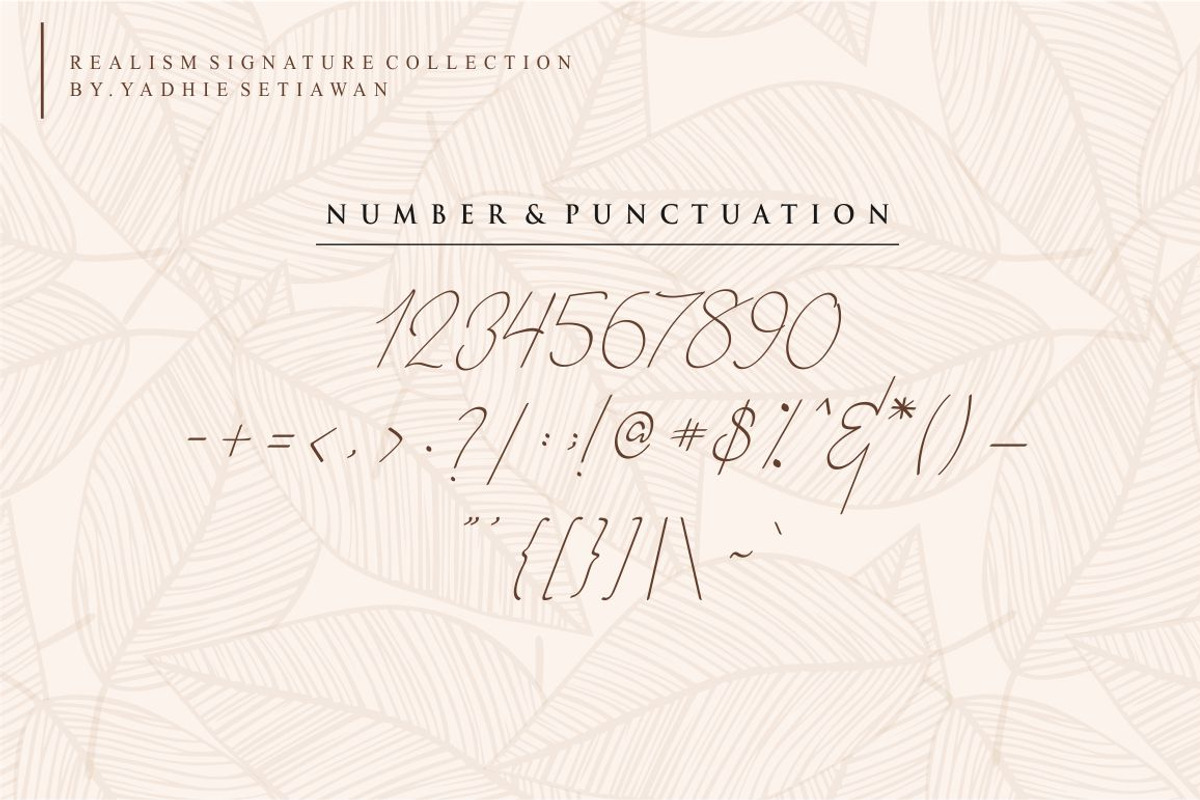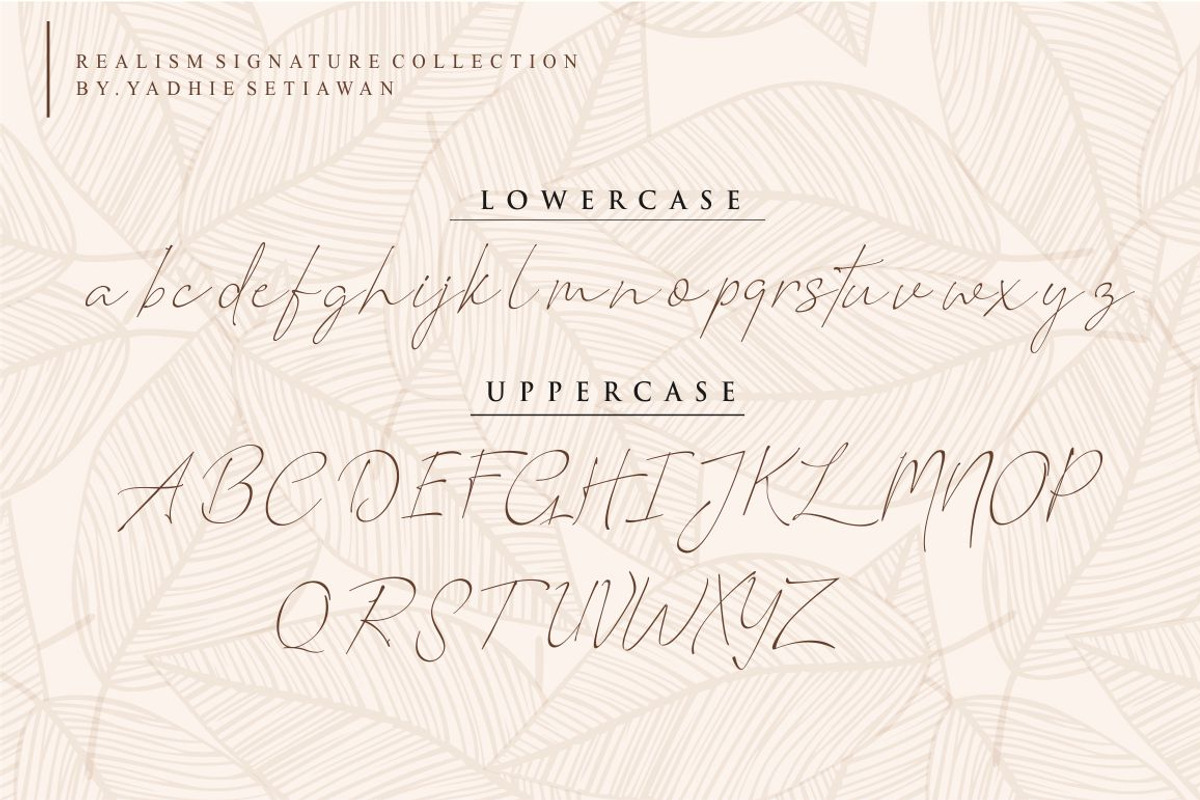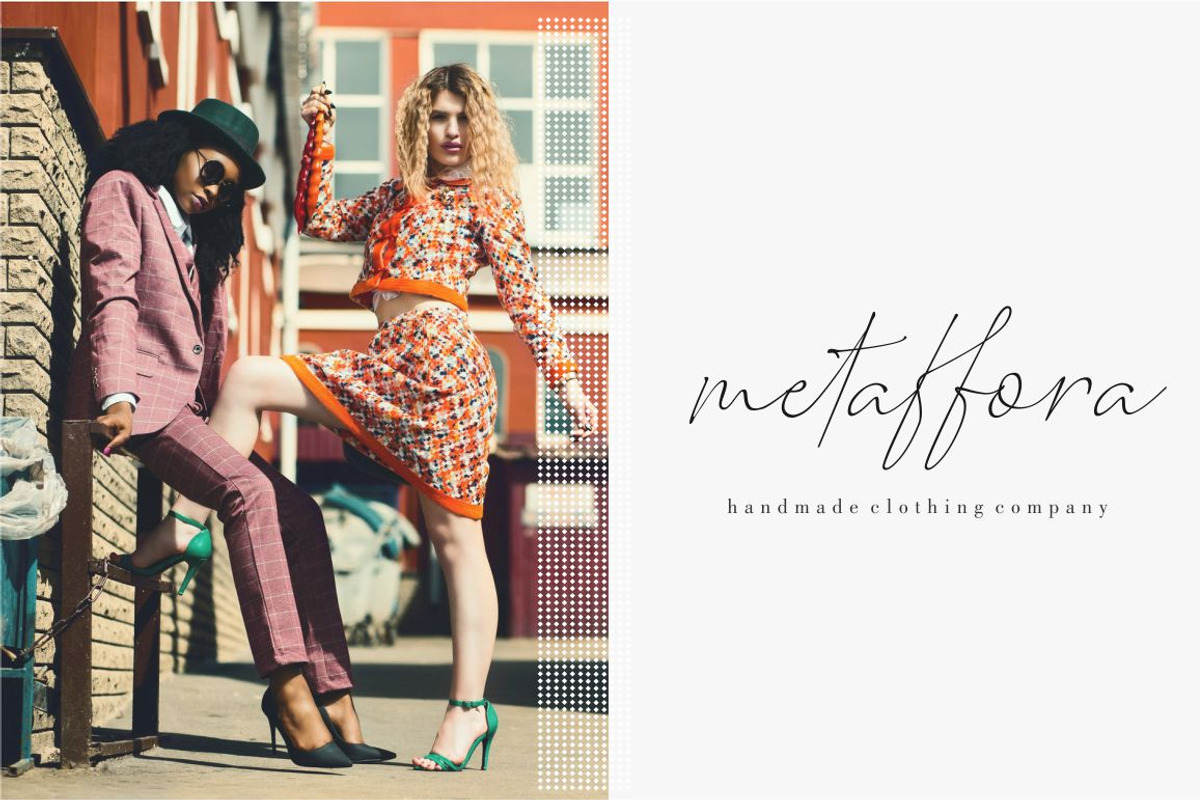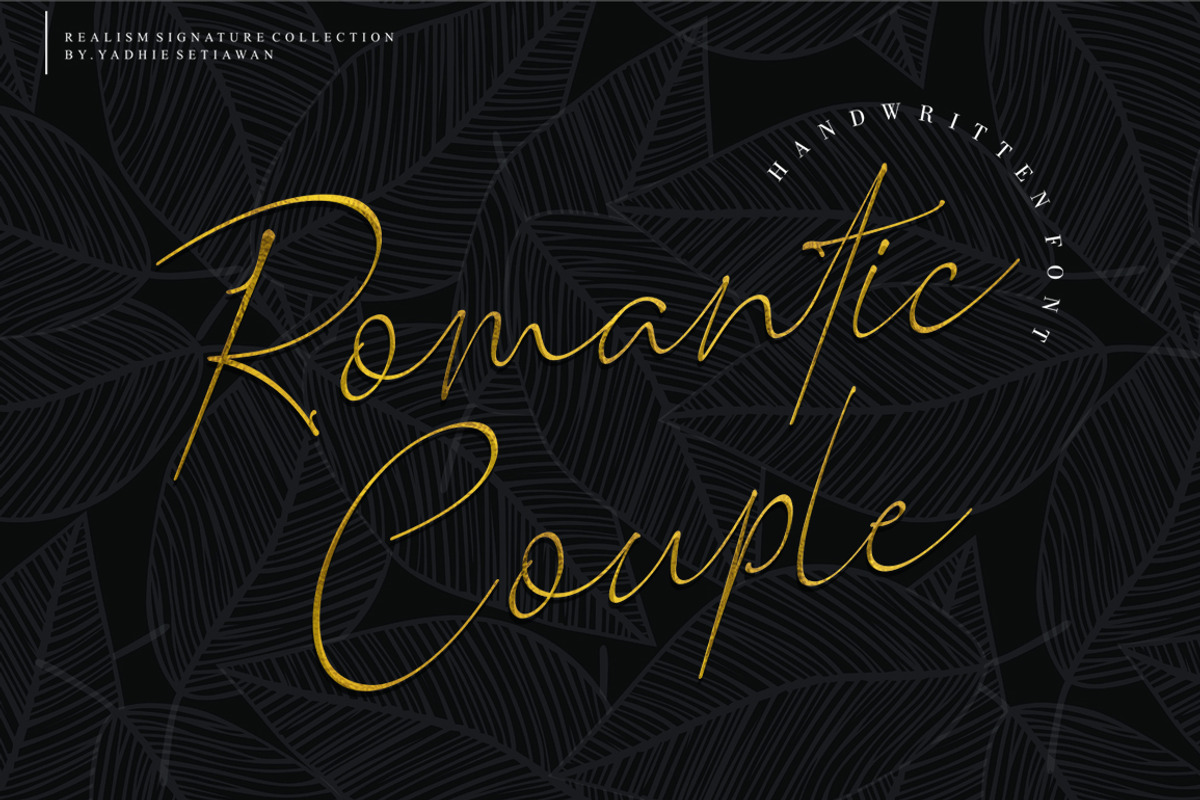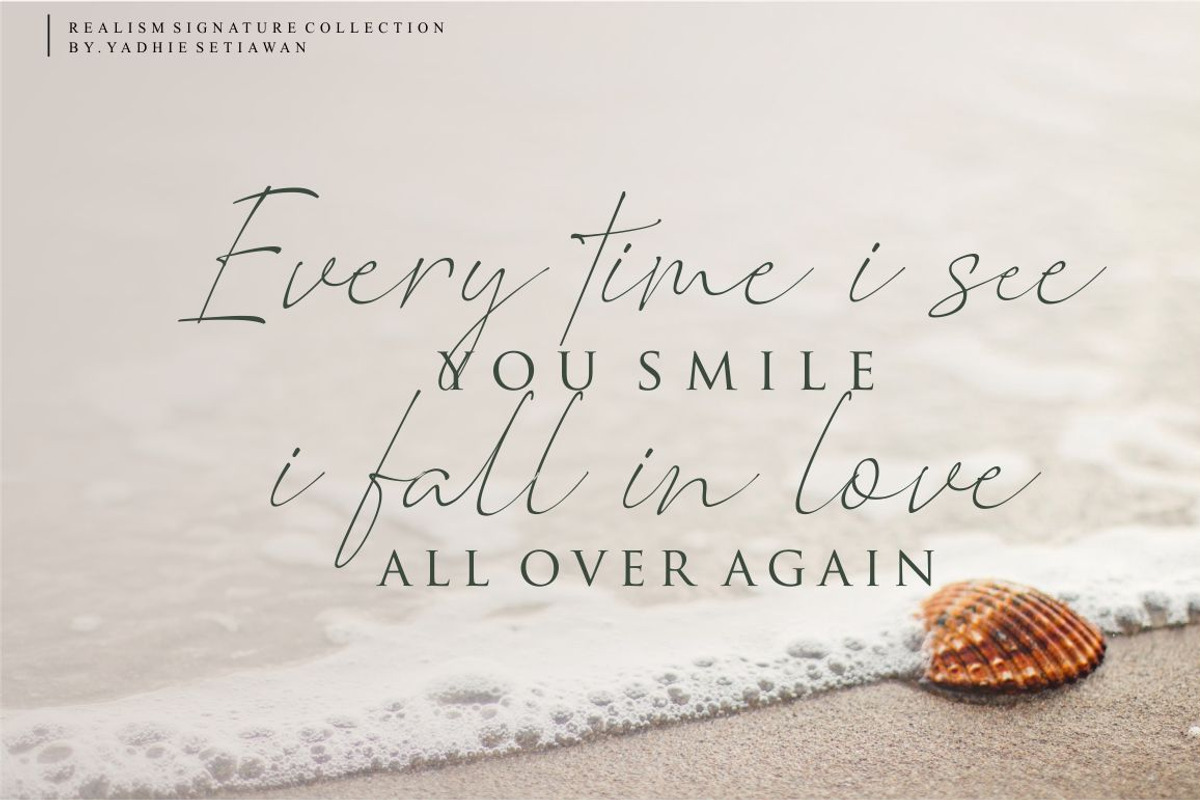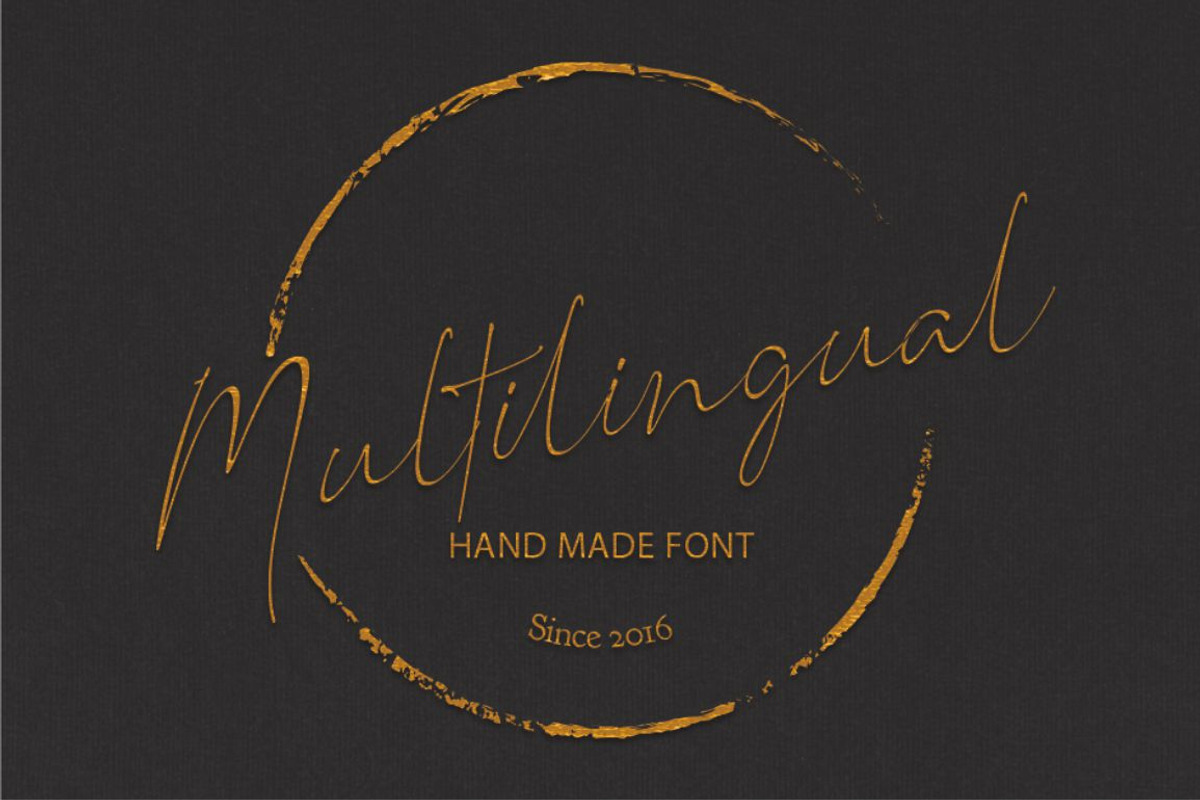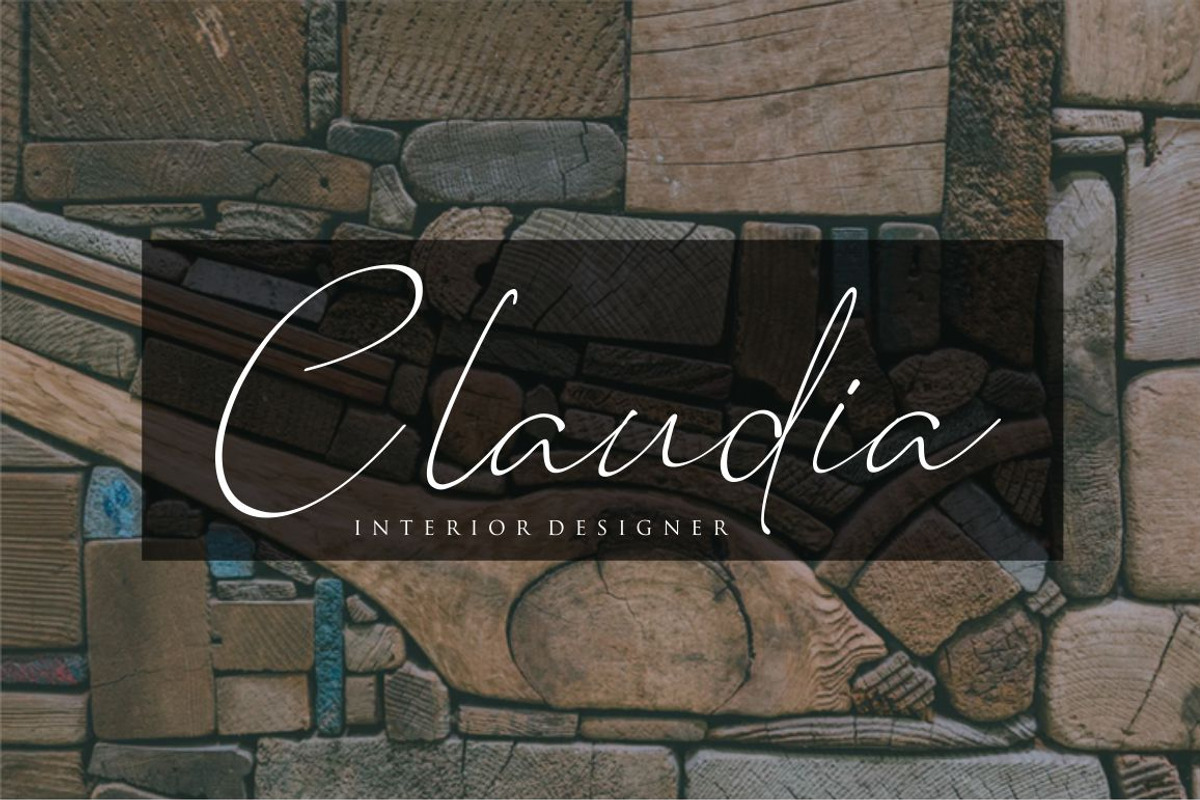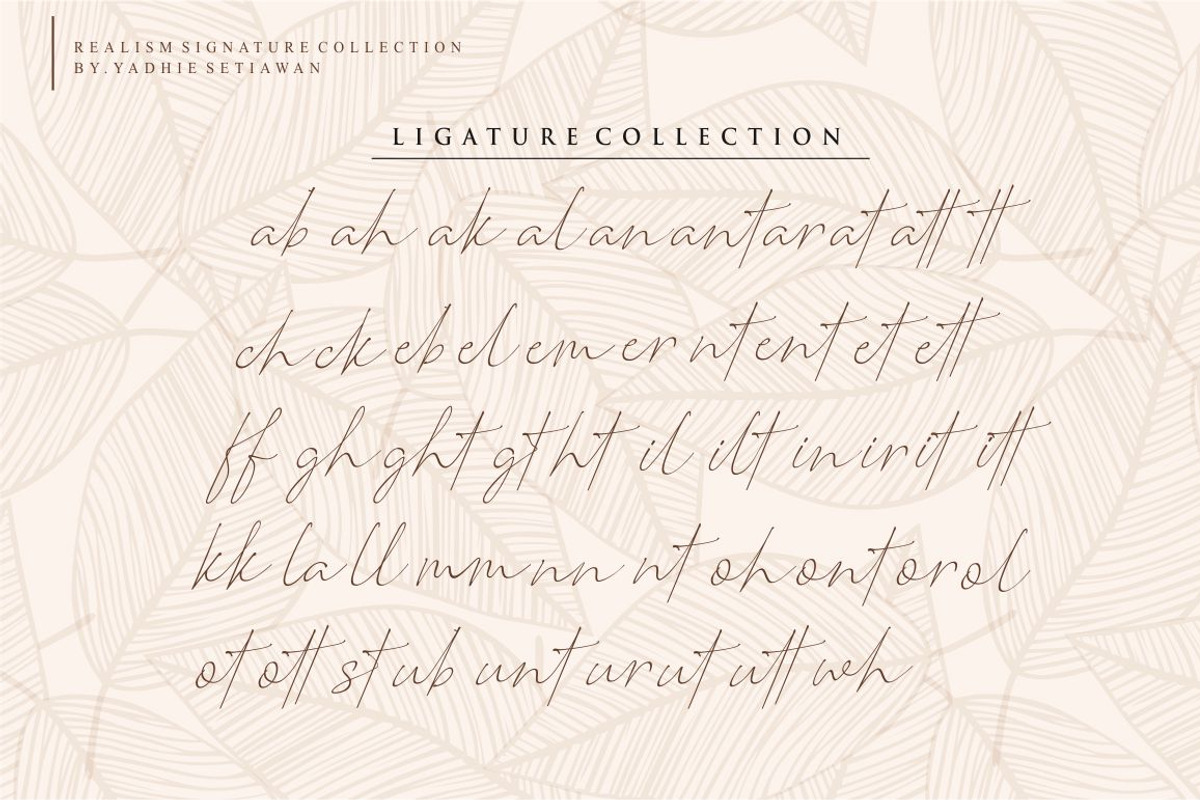
Romantic Couple // Elegant Signature
LUXURY AND REALISM SIGNATURE FONT
Hello!! Proudly present Romantic Couple Script is the latest and most amazing Realism Signature font, designed to create beautiful typhography or lettering,
Looks beautiful when used for personal logo and letterhead.branding,magazine,name card ,wedding invitation and anything do you want inspired ligature santorini font by peach creme, and this font inspired romantic feel the name of font Romantic Couple
Romantic Couple also includes full set of uppercase and lowercase letters, multilingual symbols, numerals, punctuation. The font has , so would be perfect for all types of printing techniques ,
Romantic Couple font contains following ligatures:
ab ah ak al an ant ar at att ch ck ea eb ed el em en nt er et eth ett ff gh ght gt he ht ia ib idd ie il ilt in ir is it itt kk l ll mm na ne nn ns nt oh oi ol on ont or os ot ott ph rr sh st th tt un unt ur ut utt wh